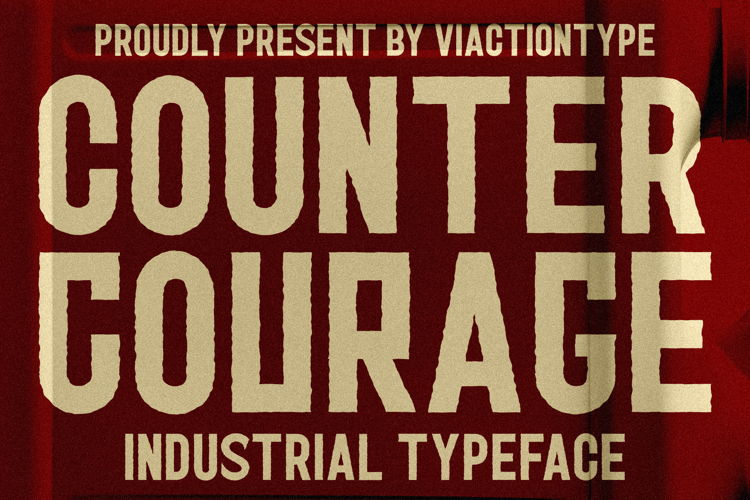
Counter Courage Font
Counter Courage is a vintage-style sans serif font with an ink effect that’s perfect for industrial and vintage-themed designs. This font is equipped with the opentype feature and supports multilingual. Included in the fonts: